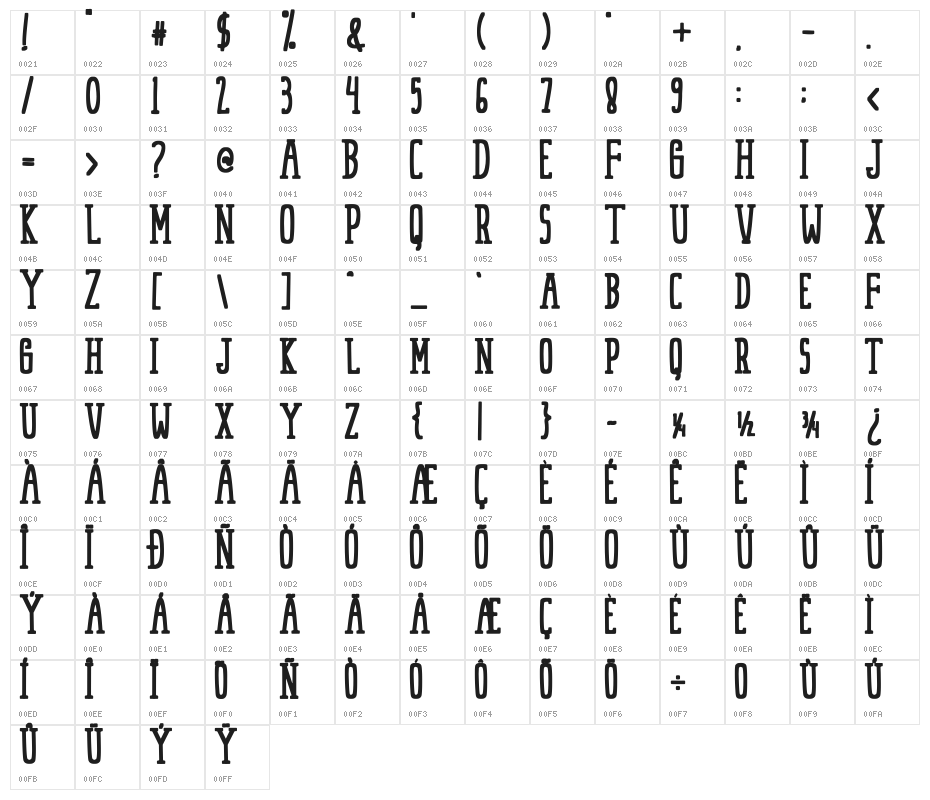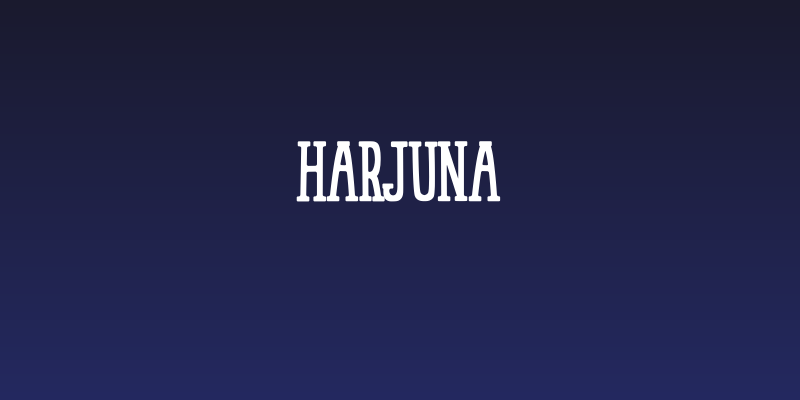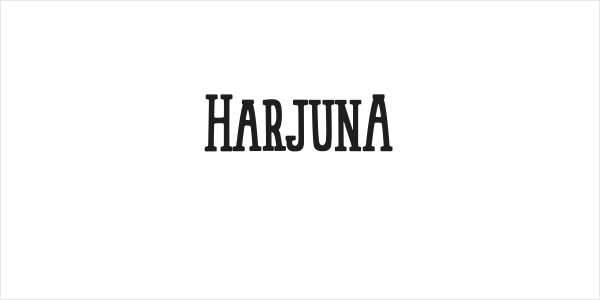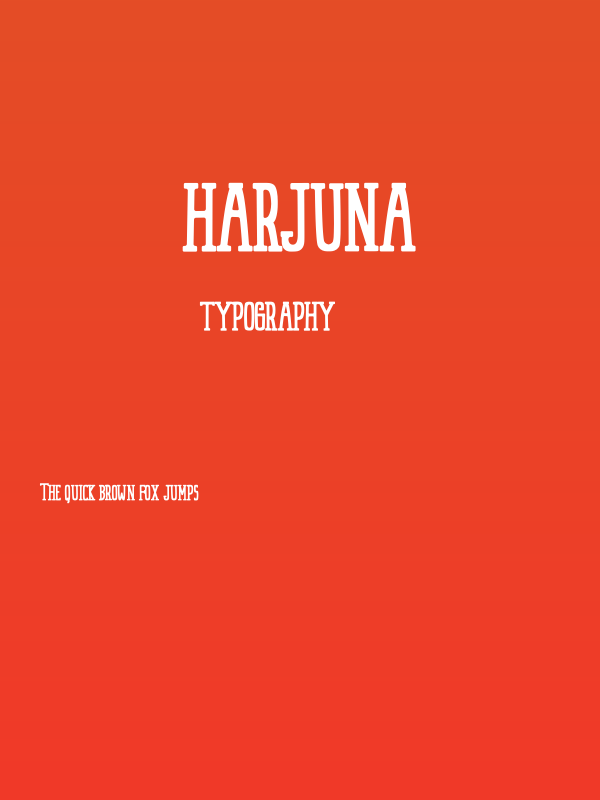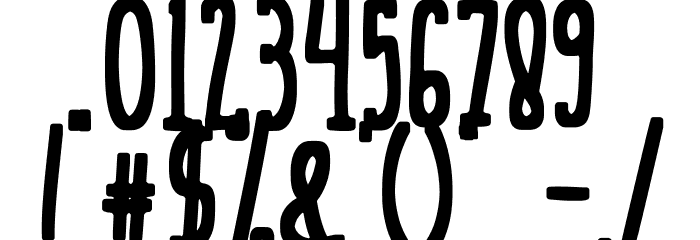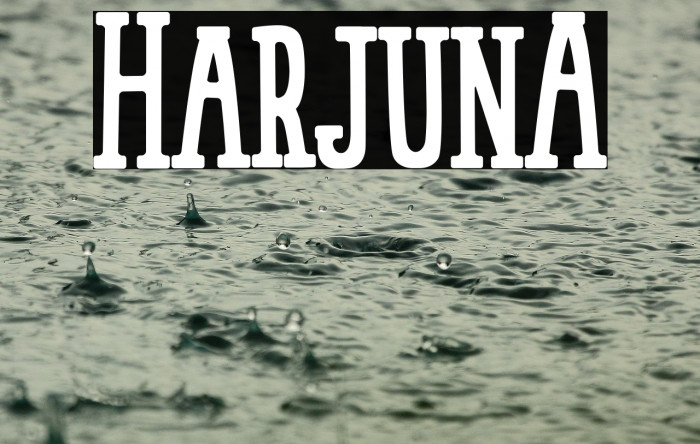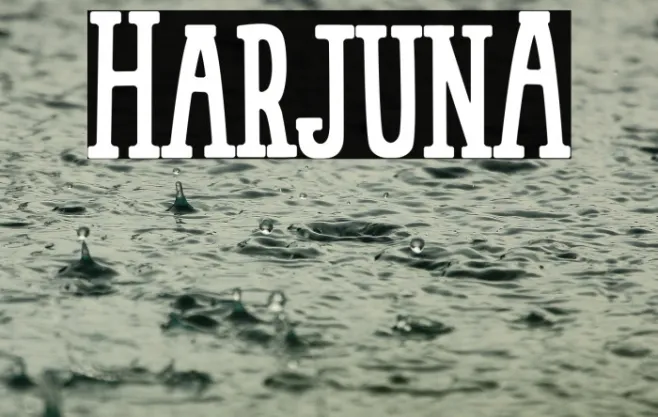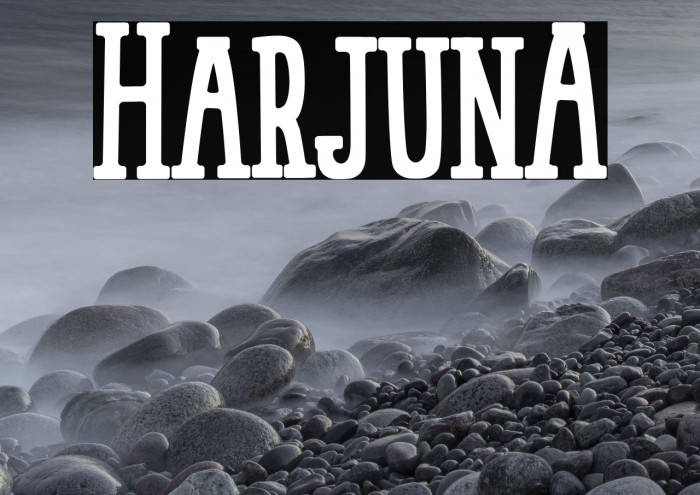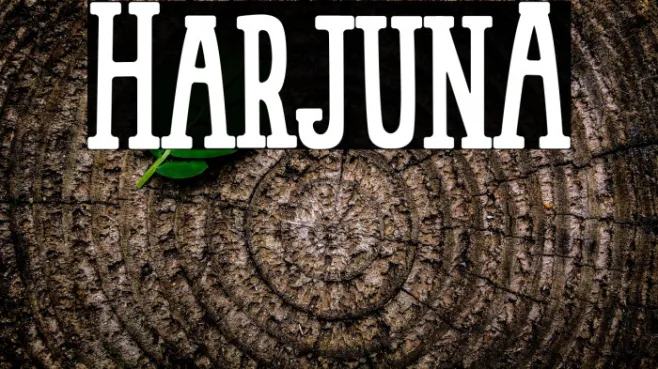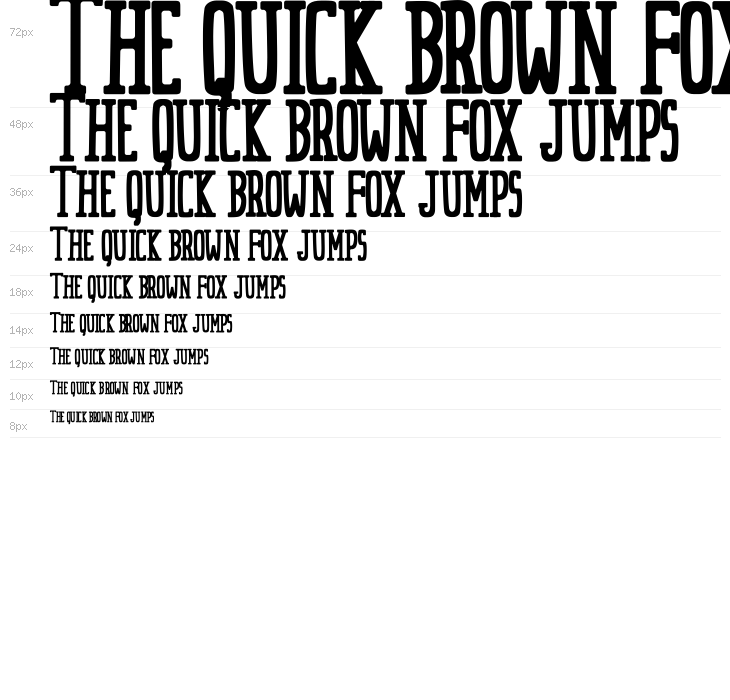
HarjunA Font
HarjunA Description
This font features a bold and condensed style with a strong presence, characterized by thick strokes and a uniform weight throughout the characters. The uppercase letters are tall and narrow, giving a sense of verticality and strength. The lowercase letters maintain the same condensed nature, ensuring consistency across the typeface. The numerals are similarly bold, with a slightly playful touch due to their rounded edges. Special characters are well-integrated, matching the overall boldness and condensed style. This font is designed to stand out, making it ideal for attention-grabbing headlines or impactful logos.
| Proposed Projects | Ideal for posters, headlines, branding, and logo design where a strong and impactful presence is needed. |